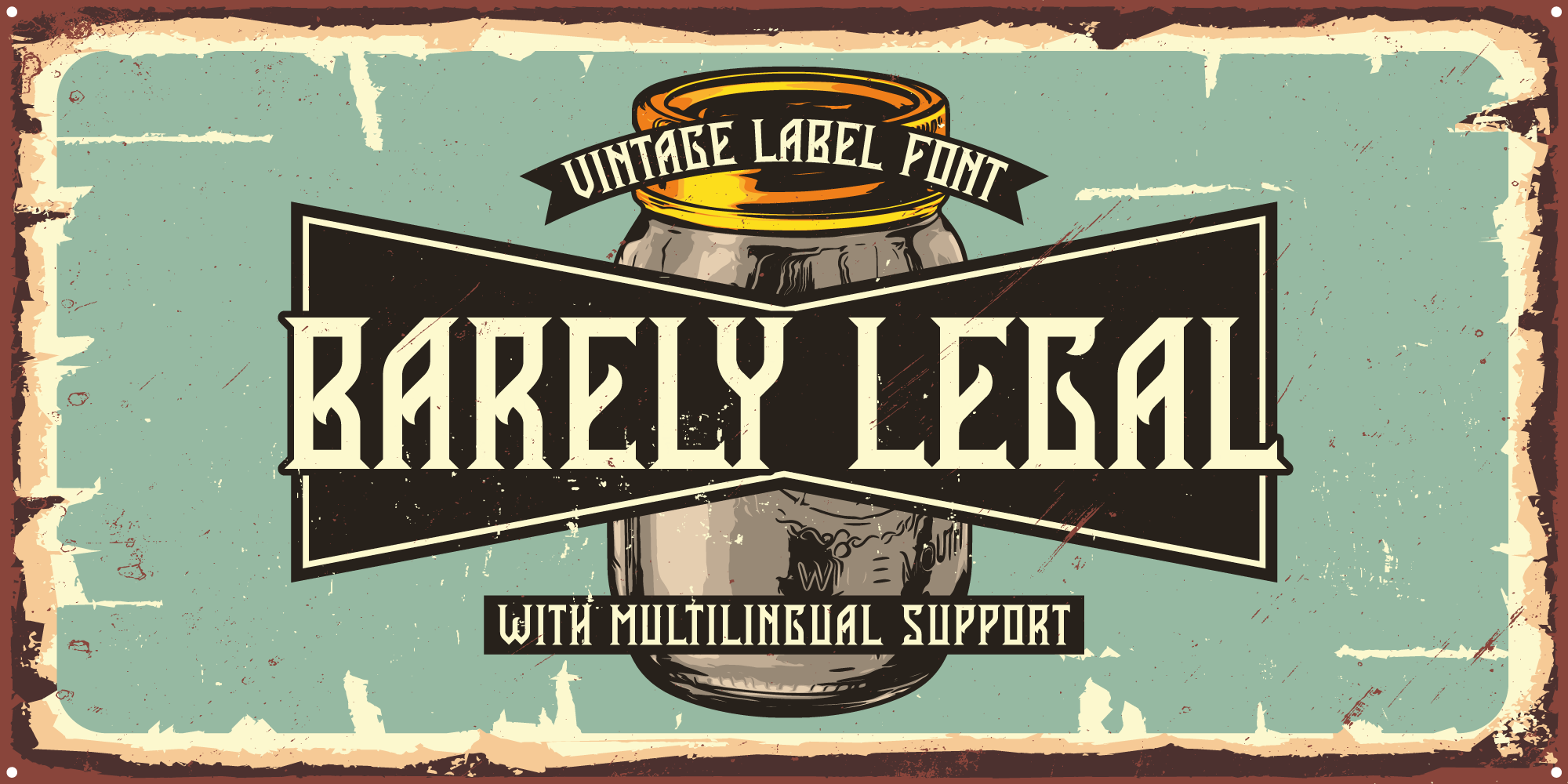
This edgy typeface is perfect for law firm branding, legal consultation services, paralegal training materials, courthouse signage, legal document designs, attorney office communications, bar exam preparation materials, and legal profession marketing that requires professional authority and legal sophistication with courthouse elegance and judicial authenticity.
Barely Legal Font is exciting because it cleverly captures the precise balance and professional rigor of legal practice through its carefully structured letterforms that embody the meticulous attention to detail and authoritative presence required in the legal profession. The font's distinctive character design and judicial aesthetic reflect the world of legal expertise and courthouse proceedings, making it perfect for legal organizations that want to convey professional credibility, legal authority, and the kind of judicial sophistication that appeals to clients seeking authentic legal representation and reliable legal services.
The Barely Legal Font family includes legal-inspired variations and professional styling options, featuring regular, bold, formal, and courthouse versions, along with judicial design elements and legal alternates that provide law firms and designers with comprehensive typographic tools for creating authentic legal branding and professional judicial communications.
Practice typographic law with Barely Legal Font Free Download, a typeface that brings legal authority to contemporary law firm and judicial branding projects. This exceptional font combines professional credibility with legal functionality, making it an indispensable resource for attorneys, legal consultants, and designers working on legal profession or courthouse marketing campaigns. The professionally crafted letterforms ensure maximum credibility while conveying the legal sophistication and judicial authenticity that defines this distinctly professional and authentically legal-inspired typeface.